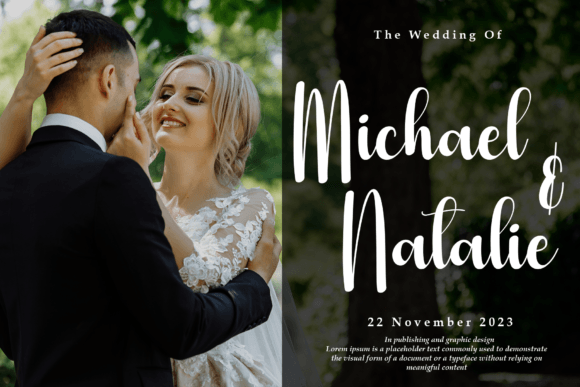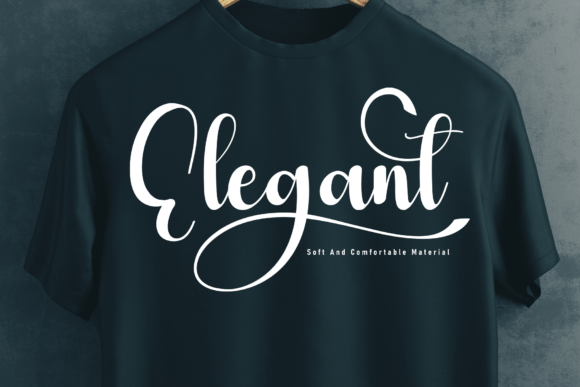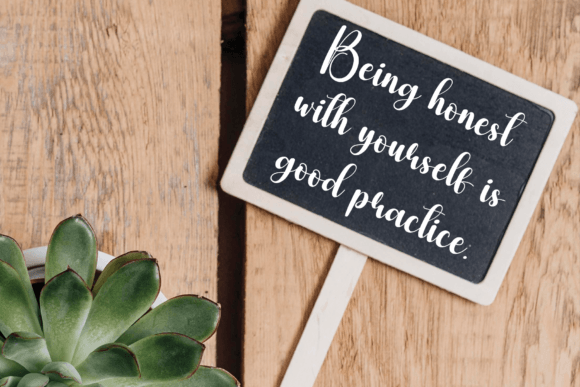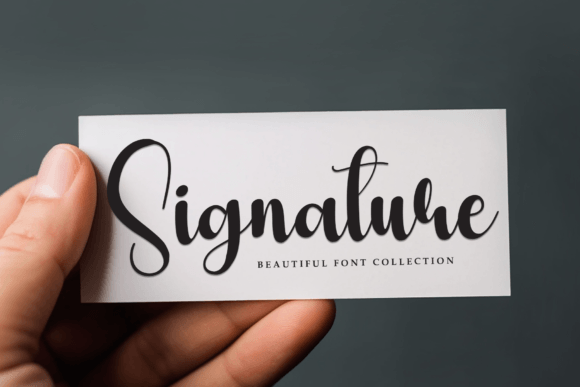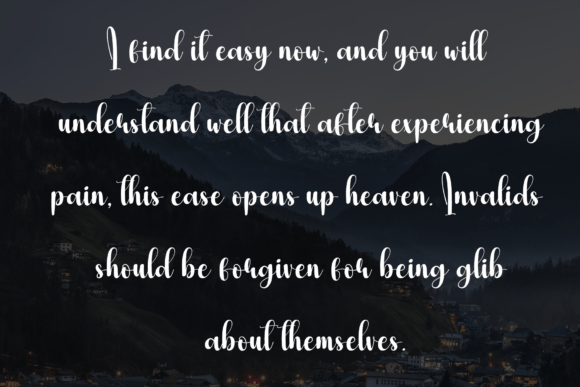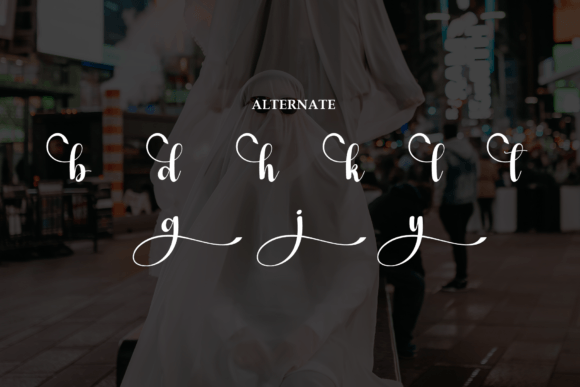
Frighten Font: The Sweet and Friendly Handwritten Font for Your Creative Projects
Are you tired of using the same old fonts for your designs? Look no further! Introducing Frighten Font, a sweet and friendly handwritten font that’s perfect for adding a personal touch to your creative projects. With its natural and unique style, Frighten Font is incredibly versatile and can be used for a wide range of designs, from invitations and greeting cards to branding and advertising materials.
The Characteristics of Frighten Font
Frighten Font is a handwritten font that’s designed to look friendly and approachable. Its natural, cursive style gives it a warm and inviting feel that’s perfect for designs that require a personal touch. The font’s unique characteristics include:
- Natural and unique style: Frighten Font has a distinctive, hand-crafted look that’s perfect for adding a personal touch to your designs.
- Versatile: With its clean and simple design, Frighten Font can be used for a wide range of projects, from formal to informal.
- Easy to read: Despite its handwritten style, Frighten Font is incredibly easy to read, making it perfect for designs that require a lot of text.
The Benefits of Using Frighten Font
So why should you choose Frighten Font for your next design project? Here are just a few benefits of using this amazing font:
- Adds a personal touch: Frighten Font’s unique, handwritten style gives your designs a personal touch that’s hard to replicate with other fonts.
- Increases creativity: With Frighten Font, the only limit is your imagination! This font can be used for a wide range of designs, from creative crafts to professional branding materials.
- Perfect for DIY projects: Frighten Font is perfect for crafters and DIY enthusiasts who want to add a personal touch to their projects.
How to Use Frighten Font in Your Designs
Using Frighten Font in your designs is easy! Here are a few tips to get you started:
- Pair it with other fonts: Frighten Font looks great when paired with other fonts, such as sans-serif fonts or script fonts.
- Experiment with colors: Frighten Font looks great in a variety of colors, from bright and bold to soft and pastel.
- Add embellishments: Consider adding embellishments, such as flowers or stars, to give your designs an extra touch of personality.
Frighten Font in the World of Design
Frighten Font is more than just a font – it’s a design tool that can help you bring your creative vision to life. Whether you’re a professional designer or a DIY enthusiast, Frighten Font is the perfect choice for anyone who wants to add a personal touch to their designs.
In the world of design, fonts play a crucial role in communicating a message and setting the tone for a brand or project. With Frighten Font, you can create designs that are friendly, approachable, and uniquely yours.
In conclusion, Frighten Font is a sweet and friendly handwritten font that’s perfect for adding a personal touch to your creative projects. With its natural and unique style, Frighten Font is incredibly versatile and can be used for a wide range of designs. Whether you’re a professional designer or a DIY enthusiast, Frighten Font is the perfect choice for anyone who wants to bring their creative vision to life.